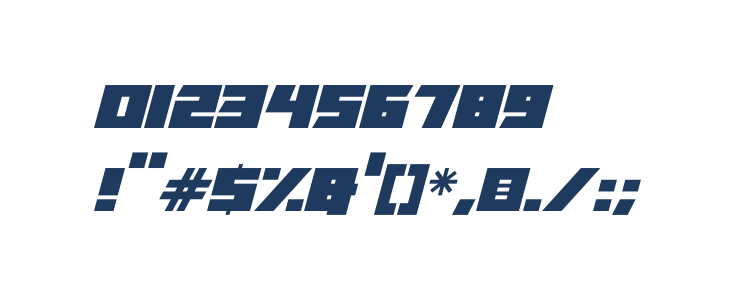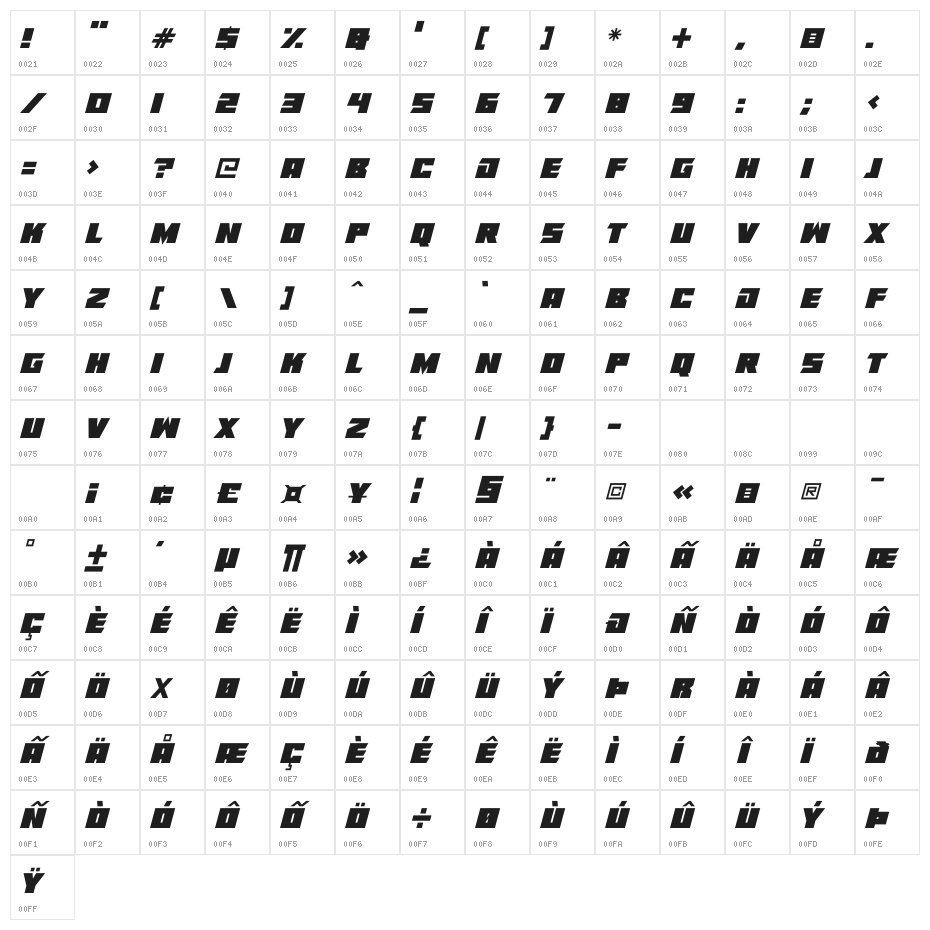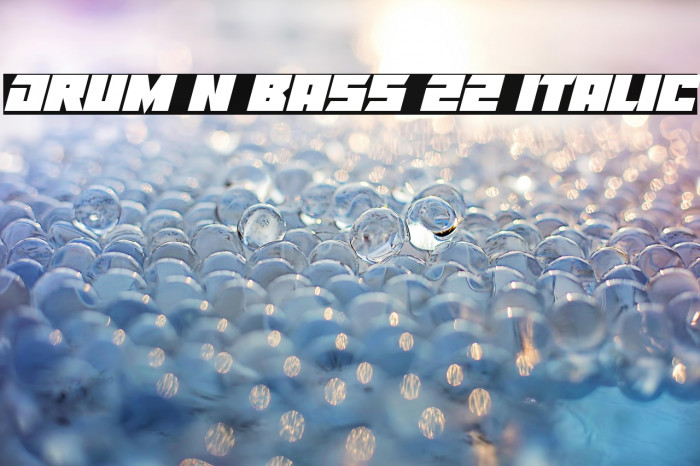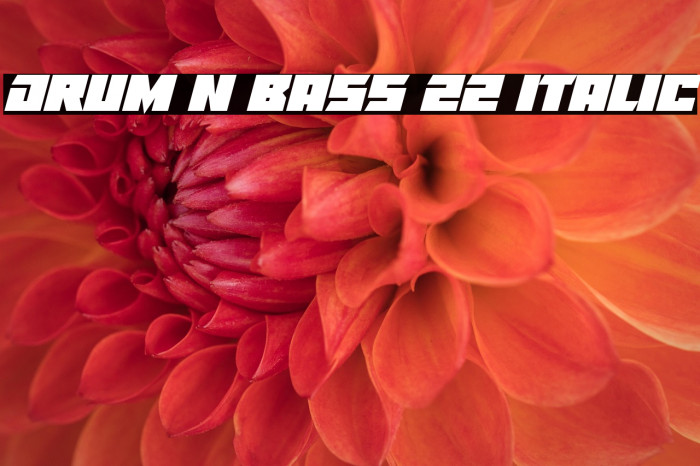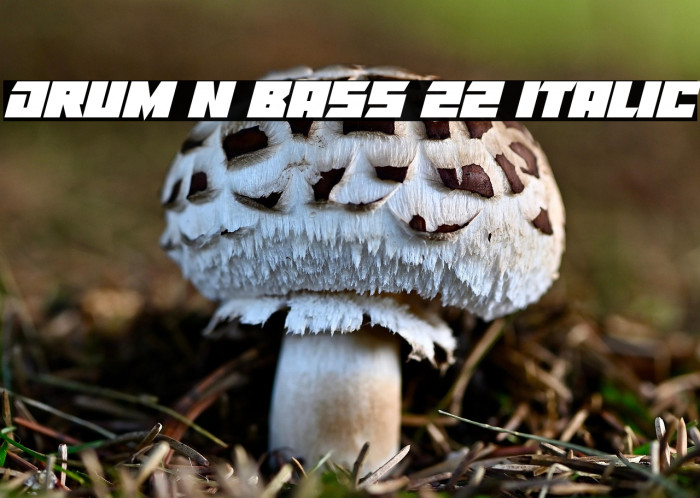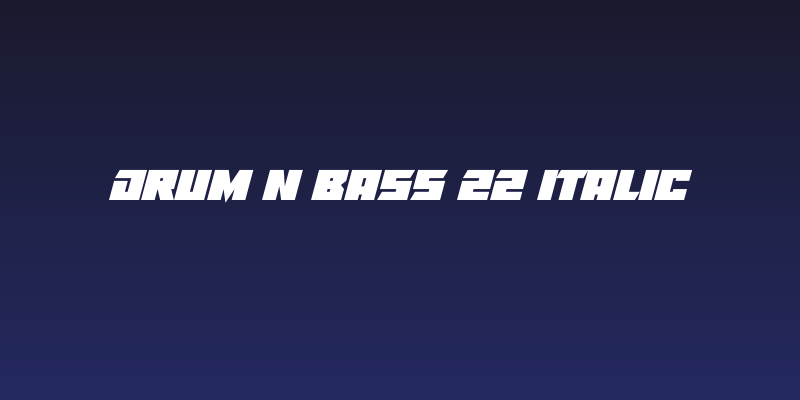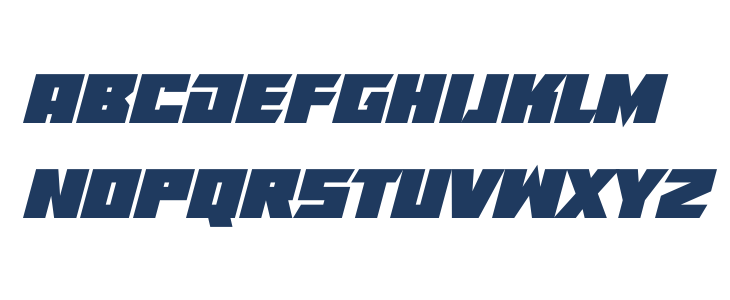
Drum N Bass 22 Italic Font
Drum N Bass 22 Italic Description
This font features a bold, angular design with a strong geometric influence, characterized by sharp edges and a dynamic slant. The uppercase letters are particularly striking, with a futuristic and aggressive appearance. The lowercase letters maintain the same boldness and angularity, ensuring consistency throughout the typeface. Numbers and special characters are designed with the same attention to detail, making them suitable for a variety of uses. The italic style adds a sense of motion and energy, enhancing its modern and edgy aesthetic.